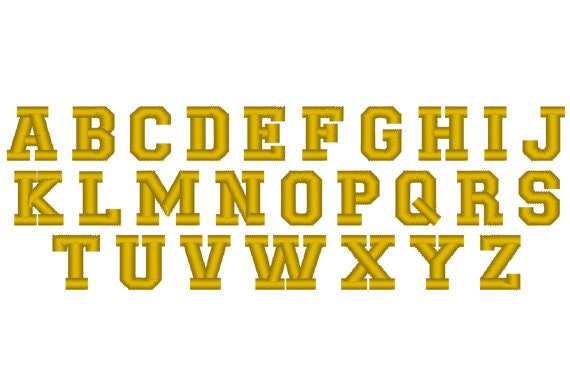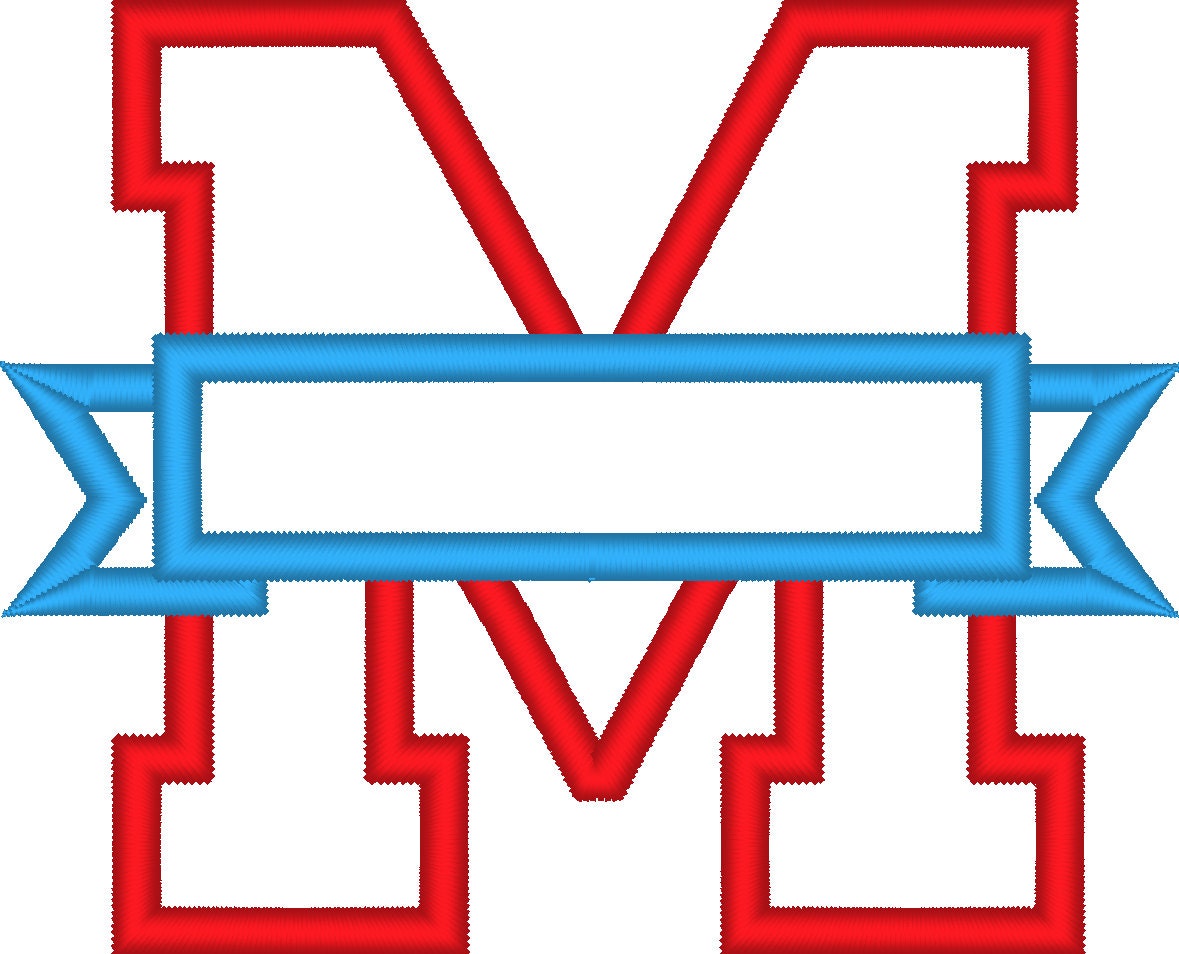
3" - shown on photo
4", 5"
In this set also 4 Sizes of the small font shown above
Sizes will fit into the split in the applique letters.
The whole alphabet is available.